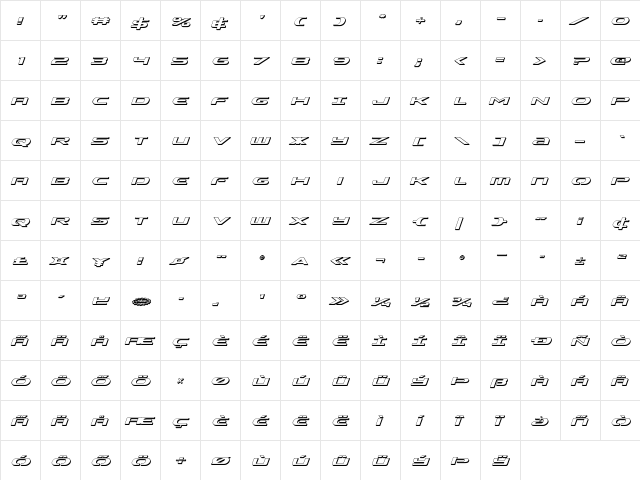
Alpha Men 3D Italic Italic
Design Context for Alpha Men 3D Italic Typeface
Alpha Men 3D Italic is a composed and adaptable typeface that performs quietly and consistently across a wide range of design contexts. The dynamic lean of this cut emphasises speed and emphasis in any layout.
Pro Tip: Use Alpha Men 3D Italic for emphasis, pull quotes, and subheadings where its slanted energy can add rhythm to the layout.